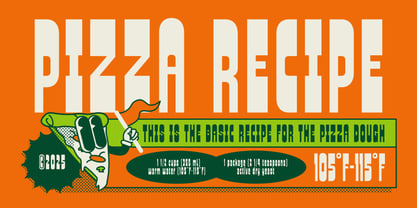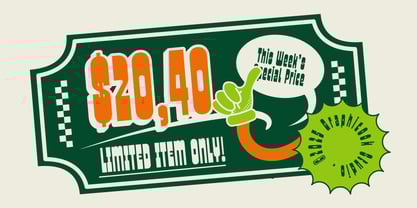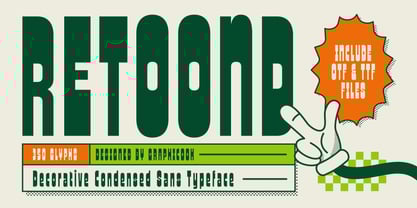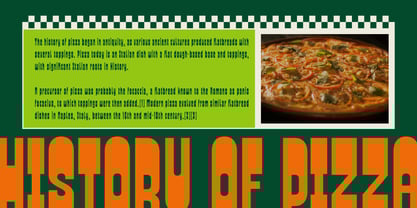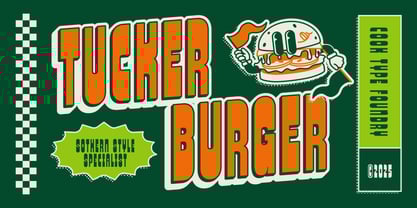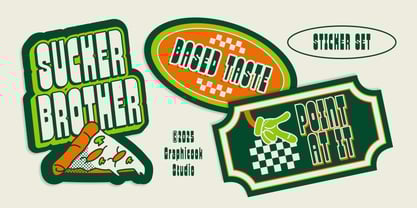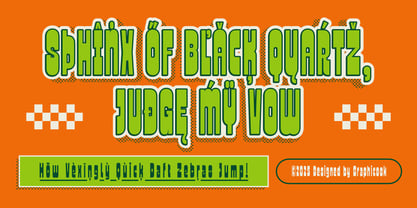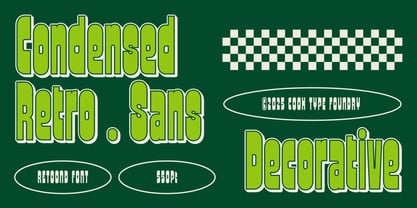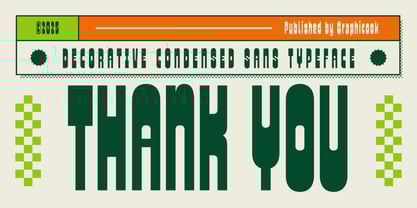
Cook Retoond
by Graphicook Studio
The Cook Retoond Font Family was designed by Gumilar Febriansyah and published by Graphicook Studio. Cook Retoond contains 1 styles. More about this family
Retoond is a decorative sans-serif font with a retro style. Its eye-catching font makes it perfect for logos, posters, and other projects that call for bold, standout typography.
Designers: Gumilar Febriansyah
Foundry: Graphicook Studio